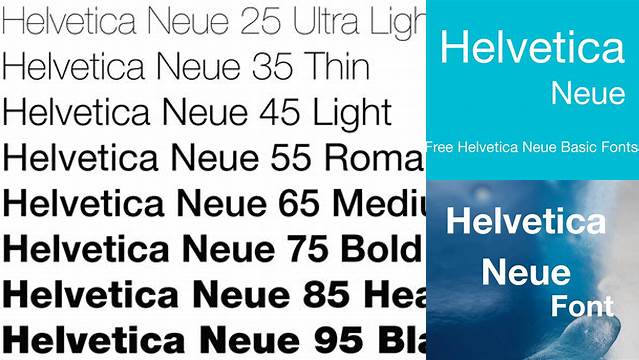
Hey guys! Let's dive into the fascinating realm of typography, specifically focusing on the Neue Helvetica World font. This isn't just any font; it's a global powerhouse, a typeface that speaks volumes (pun intended!) in clarity, versatility, and timeless design. In this article, we're going to explore why Neue Helvetica World is so beloved, its unique characteristics, where you can find it for free download, and how to best utilize it in your projects. Whether you're a seasoned designer or just starting out, understanding Neue Helvetica World is crucial.
Neue Helvetica World is more than just a font; it's a design statement. It's the go-to choice for countless brands and publications worldwide, thanks to its clean lines, exceptional readability, and broad language support. But what makes it so special? Well, it's a descendant of the original Helvetica, a typeface that revolutionized graphic design in the mid-20th century. Neue Helvetica World takes that legacy and expands upon it, offering an even wider range of weights and styles, plus enhanced support for international characters. This means you can use it for anything from body text in a lengthy document to a striking headline in a poster, and it will always look professional and polished. Its neutrality is its superpower; it doesn't scream for attention, but rather quietly commands it through its sheer elegance and functionality. We'll unpack this further as we go on, but trust me, understanding this font can significantly elevate your design game. We will also discuss licensing implications and ethical considerations when you explore downloading this font. So, buckle up, and let’s journey into the world of Neue Helvetica World!
So, what exactly is Neue Helvetica World, and why is it such a big deal in the design world? To really understand its significance, we need to take a little trip back in time and explore its origins. The story begins with Helvetica, a typeface designed in 1957 by Max Miedinger and Eduard Hoffmann. Helvetica was a game-changer; its clean, sans-serif design was a stark contrast to the ornate, traditional typefaces of the time. It quickly became a favorite among designers for its readability and versatility. Fast forward to the 1980s, and the need for a more comprehensive and consistent version of Helvetica arose. Enter Neue Helvetica, a redesign that standardized the weights and styles of the original, making it even more user-friendly. Now, Neue Helvetica World takes things a step further by expanding language support. This means it can handle characters from a vast array of languages, making it a truly global typeface.
The key characteristics of Neue Helvetica World are what truly set it apart. First and foremost, it's a sans-serif font, meaning it lacks the small decorative strokes (serifs) found at the ends of letterforms in fonts like Times New Roman. This gives it a clean, modern look. The letterforms are also designed with a consistent stroke weight, which contributes to its excellent readability. The x-height (the height of the lowercase letters) is relatively large, further enhancing legibility, especially in body text. But perhaps the most crucial aspect of Neue Helvetica World is its neutrality. It doesn't have a strong personality of its own, which allows it to adapt to a wide variety of design contexts. It's like the chameleon of fonts, blending seamlessly into the background while still maintaining a sense of elegance and professionalism. This neutrality is why you see it used in everything from corporate branding to signage to editorial design. It's a workhorse font that can handle just about anything you throw at it. Understanding these characteristics is essential for making the most of Neue Helvetica World in your own projects. It's not just about downloading a font; it's about understanding its nuances and using it effectively to communicate your message.
Why is Neue Helvetica World so incredibly popular? It's a question worth exploring because this font's ubiquity isn't just a matter of chance. Its popularity stems from a potent combination of design excellence, functional versatility, and a timeless appeal that transcends fleeting trends. In the design world, Neue Helvetica World is often considered a go-to choice, a reliable workhorse that can handle a vast range of applications. Its clean, sans-serif aesthetic lends itself perfectly to modern designs, while its exceptional readability makes it ideal for body text in documents, websites, and publications. Think about the last time you saw a corporate logo or a website with a clean, professional feel – chances are, Neue Helvetica World (or a close relative) was involved. But its appeal goes beyond mere functionality.
The applications of Neue Helvetica World are incredibly diverse, which is a significant factor in its enduring popularity. It excels in branding and logo design, where its neutrality allows the brand's message to take center stage without being overshadowed by the font's personality. Its clarity and legibility make it a natural choice for signage, ensuring that information is easily readable from a distance. In the world of web design, Neue Helvetica World shines as a versatile option for both headings and body text, providing a clean and user-friendly reading experience. Editorial design also benefits from its elegance and readability, making it a staple in magazines, newspapers, and books. But it's not just about professional applications; Neue Helvetica World can also be used effectively in personal projects, such as resumes, presentations, and even creative writing endeavors. Its versatility makes it a valuable asset in any designer's toolkit, regardless of their experience level. The reason for its widespread adoption isn't solely aesthetic; it's also practical. Neue Helvetica World's broad language support means it can be used in projects targeting global audiences, making it a truly international typeface. This combination of aesthetic appeal, functional versatility, and global reach is what solidifies Neue Helvetica World's position as a design staple.